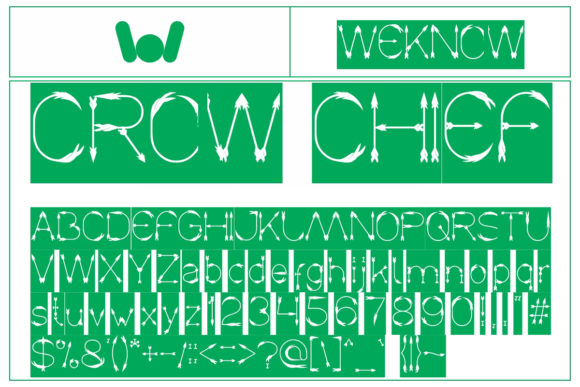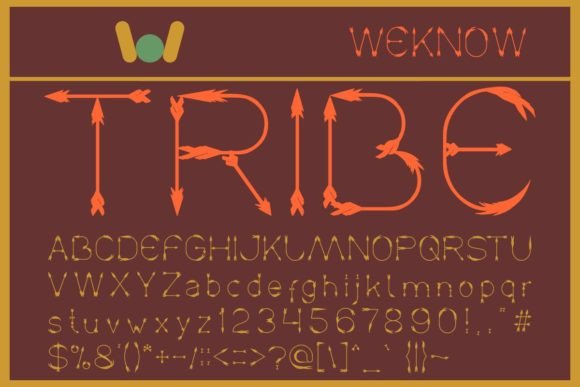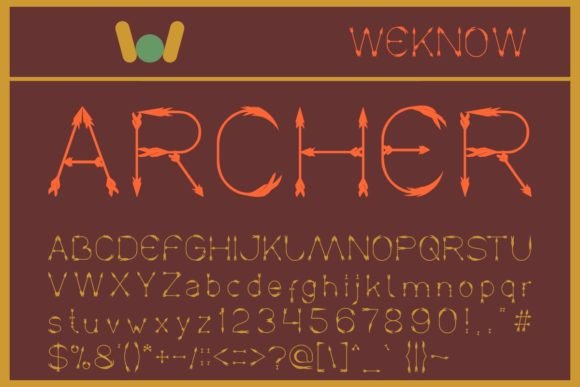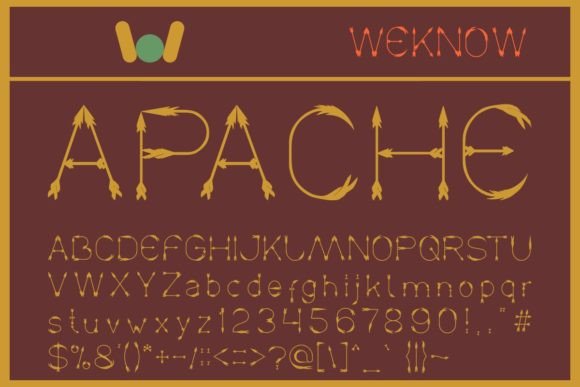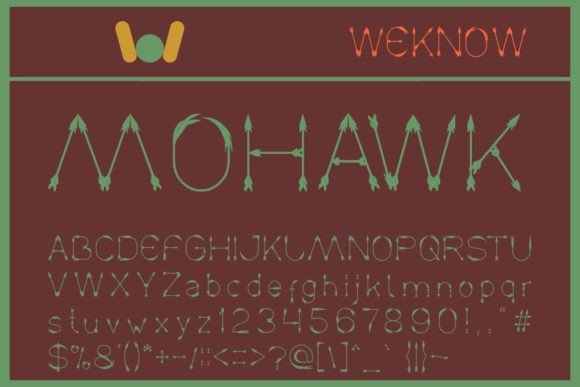
Crow Chief Font: Elevate Your Designs with a Clean and Beautiful Typeface
In the world of typography, a good font can make all the difference in the success of a design project. If you’re a designer or crafter looking for a unique and clean display font, look no further than Crow Chief. This original typeface boasts an undeniably clean feel, making it perfect for a wide range of creative projects. In this article, we’ll take a closer look at the Crow Chief font, its features, and how you can use it to elevate your designs.
What is Crow Chief Font?
Crow Chief is a display font designed to make a statement. With its neat and beautiful arrangement of letters, this typeface is sure to turn heads. The font features a unique blend of modern and classic elements, giving it a timeless feel that’s perfect for a variety of design applications. Whether you’re working on a logo, brochure, or website, Crow Chief is the perfect choice for designers who want to add a touch of elegance and sophistication to their work.
Key Features of Crow Chief Font
So, what sets Crow Chief apart from other display fonts on the market? Here are just a few of its key features:
- Clean and Modern Design: Crow Chief features a clean and modern design that’s perfect for designers who want to create a sleek and sophisticated look.
- Unique Letter Arrangement: The font’s unique letter arrangement gives it a distinctive feel that’s sure to set it apart from other typefaces.
- High-Quality Typography: Crow Chief is designed with high-quality typography in mind, making it perfect for use in a variety of design applications, from logos and brochures to websites and more.
- Easily Readable: Despite its unique design, Crow Chief is easily readable, even at smaller sizes, making it perfect for use in a variety of design applications.
How to Use Crow Chief Font in Your Designs
Now that we’ve covered the key features of Crow Chief, let’s take a look at how you can use it in your designs. Here are a few ideas to get you started:
- Logos and Branding: Crow Chief is perfect for use in logos and branding materials, thanks to its unique and memorable design.
- Brochures and Flyers: The font’s clean and modern design makes it perfect for use in brochures and flyers, where you want to make a strong impression.
- Websites and Digital Media: Crow Chief is also perfect for use on websites and in digital media, where its high-quality typography and clean design can help to elevate your brand.
- Social Media Graphics: The font’s unique design makes it perfect for use in social media graphics, where you want to stand out from the crowd.
Tips for Getting the Most Out of Crow Chief Font
To get the most out of Crow Chief, here are a few tips to keep in mind:
- Experiment with Different Sizes: Don’t be afraid to experiment with different sizes and arrangements of the font to find the look that works best for your design.
- Pair it with Other Fonts: Crow Chief can be paired with other fonts to create a unique and interesting look. Try pairing it with a sans-serif font for a bold and modern look.
- Use it Consistently: To create a cohesive look, be sure to use Crow Chief consistently throughout your design.
In conclusion, Crow Chief is a unique and versatile display font that’s perfect for designers and crafters who want to add a touch of elegance and sophistication to their work. With its clean and modern design, unique letter arrangement, and high-quality typography, Crow Chief is sure to elevate your designs and help you stand out from the crowd. So why wait? Download Crow Chief today and start creating stunning designs that will leave a lasting impression.